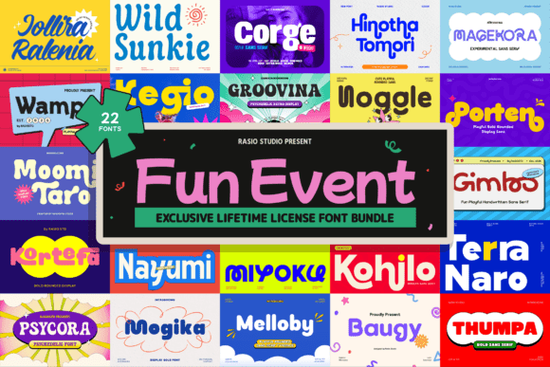
If you are looking to add a burst of personality to your creative projects, the Fun Event Font bundle is a great place to start. This collection includes 22 playful display typefaces designed to make your visuals stand out. Whether you are a print-on-demand seller creating quirky t-shirts, a small business owner designing snack packaging, or a crafter making cheerful party invitations, these letters bring the right amount of energy to your work.
What makes these typefaces stand out for playful projects?
The main appeal of this bundle lies in its variety. Instead of giving you just one or two styles, it provides a wide range of expressive shapes and dynamic details. Each typeface feels unique, which means you rarely have to settle for a generic look. If you usually prefer thicker, rounded styles for a softer look, this bundle offers similar cheerful vibes but with much more variety in character details. The letters are built to catch the eye without feeling messy or hard to read.
How can small businesses and crafters use this collection?
These typefaces are incredibly versatile for commercial and personal use. Small businesses can use them for social media graphics, product labels, and seasonal promotions. Crafters will find them perfect for cutting machines, scrapbooking, and custom apparel. When designing for children, the chunky and cute forms help create a friendly, approachable brand identity. For snack packaging, the dynamic styles can highlight flavor names in a way that grabs attention on a crowded shelf. For instance, if you are working on sweet, dessert-themed layouts, you can mix these letters with your existing typography to create a fun, balanced design. You can explore more details about the Fun Event Font directly on the marketplace to see the full character map and alternate glyphs before you begin designing.
Which projects benefit most from bold and expressive lettering?
Any project that needs to feel joyful and memorable will benefit from these letters. Event promotions, kids' brand logos, and YouTube thumbnails are all excellent use cases. You can also use these letters for digital stickers, planner inserts, and greeting cards. The unique character details give handmade items a professional finish that customers love to buy. When placing these vibrant letters over subtle, textured backgrounds, the bold shapes ensure your main message remains highly readable. Browsing through the complete display collection helps you see how each of the 22 typefaces interacts with different layout styles. This is especially useful when you are trying to match a specific mood, like a retro carnival or a modern birthday party.
How do you pair these playful letters with other styles?
Pairing loud display letters with the right secondary text is crucial for a clean layout. Contrast is your best friend here. If your main title uses a highly decorative or chunky style, your subtitles and body copy should be straightforward. This creates a visual hierarchy that guides the reader's eye exactly where you want it to go. A good rule of thumb is to pair these playful fonts with lighter, minimalist body text so your design does not feel too crowded. Let the main headline do the heavy lifting, and keep your secondary information simple and easy to scan. Always test your designs on both mobile screens and printed paper to ensure the smaller text remains legible.
What should you check before finalizing your design?
Before you send your file to print or publish it online, keep this quick checklist in mind to ensure the best results:
- Check the character map: Look at the alternate glyphs to find the most expressive letters for your main headline.
- Limit your typefaces: Use one or two playful fonts for the title, and pair them with a simple, clean font for the details.
- Test for readability: Make sure your chosen font size is large enough for the intricate details to show up clearly on smaller screens.